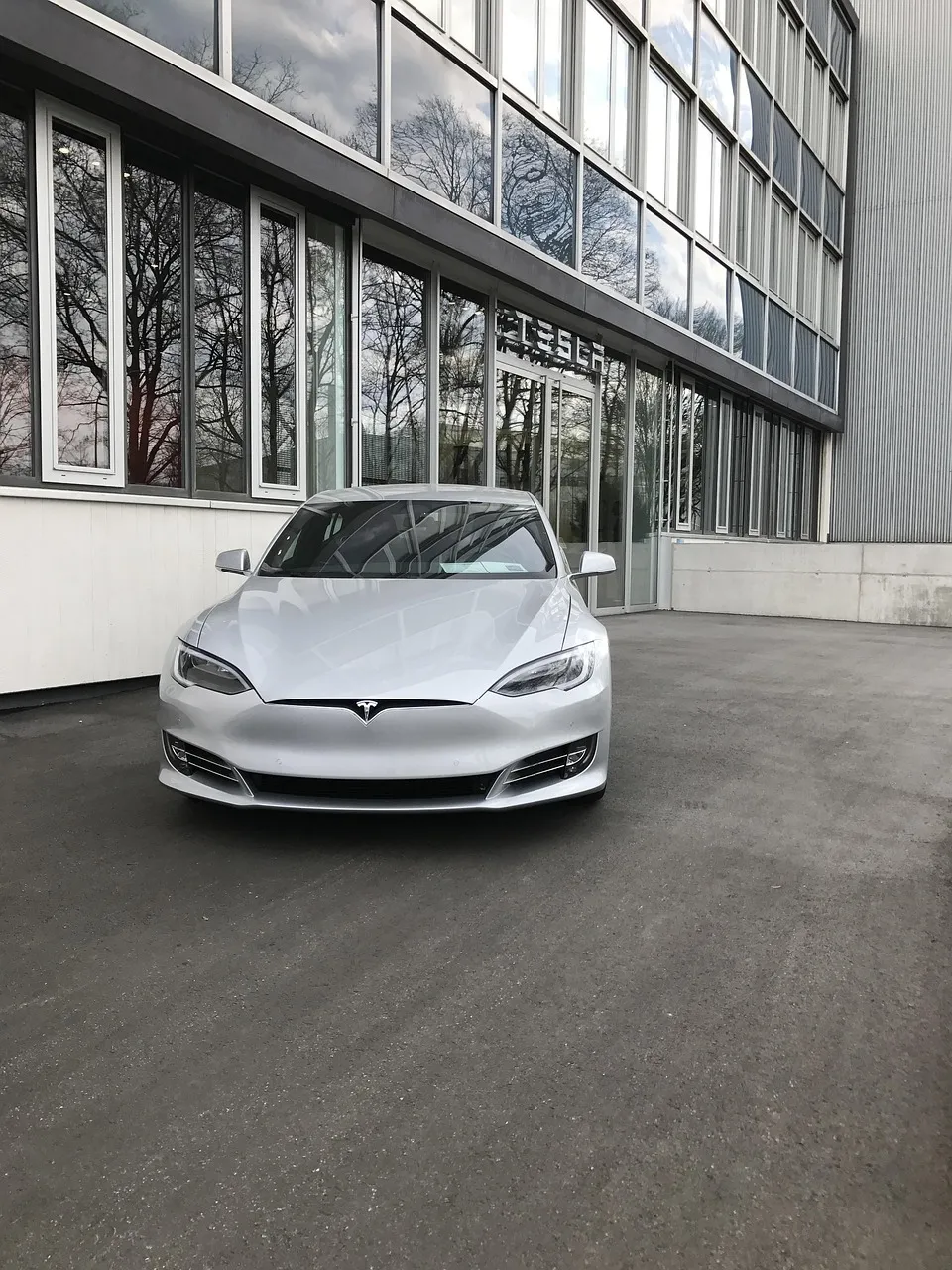
Tesla Logo
The Tesla logo design was created by RO Studio– a design firm that has a longstanding partnership with Elon Musk. It was RO Studio that created the logo design for Musk’s various other firm, Area X, and also after designing the Tesla logo, the company also introduced Musk to Franz von Holzhausen, who took place to end up being the Principal Designer at Tesla.
The Tesla logo design features the letter “T” in a special, futuristic-looking layout. It’s a white logo design set against a black background. According to Chief Executive Officer Elon Musk, it’s an elegant section of the cross-section of an electrical motor that represents an area of the stator and also blades that makes up one. The almost all of the T is among the windings on the blades while the line over it, divided by a space, is the stator. Cool.
Let’s find out which font was used in the Tesla text below the logo.
Tesla Font
The Tesla text was custom-made by Prado Studio. But dont worry, today we will discuss another Tesla font. This is a font that is inspired by the logo font of the famous company Tesla. So without wasting any time, Let’s get started.
Tesla Font by Dies
Presenting Tesla Font Style. This is a font that is inspired by the popular business Tesla. Tesla Techno Font is a top quality Sci-fi font style that is created by Passes away as well as is available free of charge download. The free variation provides all uppercase and also lowercase letters as well as a couple of special characters as well. Tesla font style doesn’t look casual or main yet there is no limitation to use this font. For its purposeful and eye-catching setup, the very best use of this font style is utilizing it on the logo design. Additionally, you can utilize this font for style functions like banners, posters, YouTube thumbnails, books cover, and also many more.